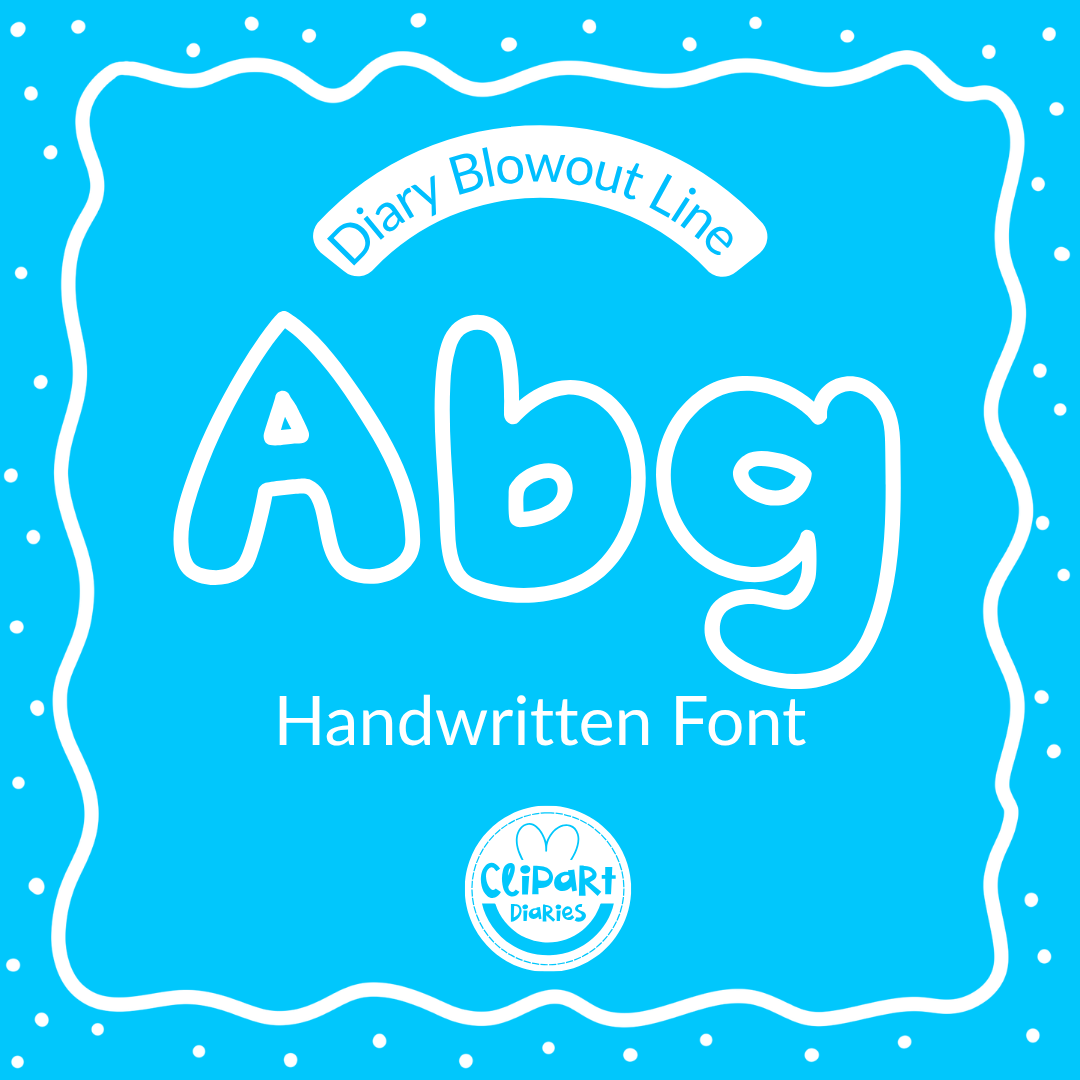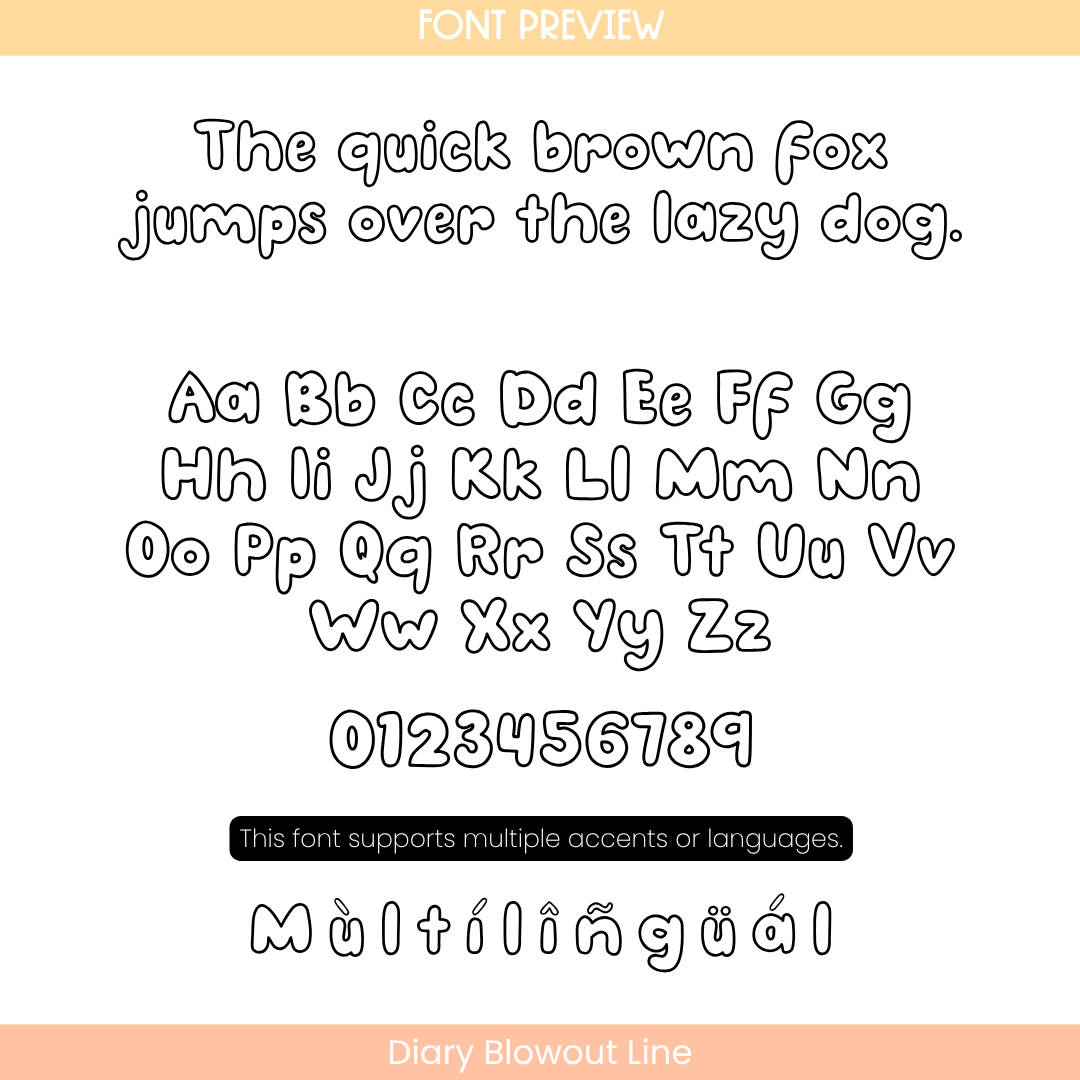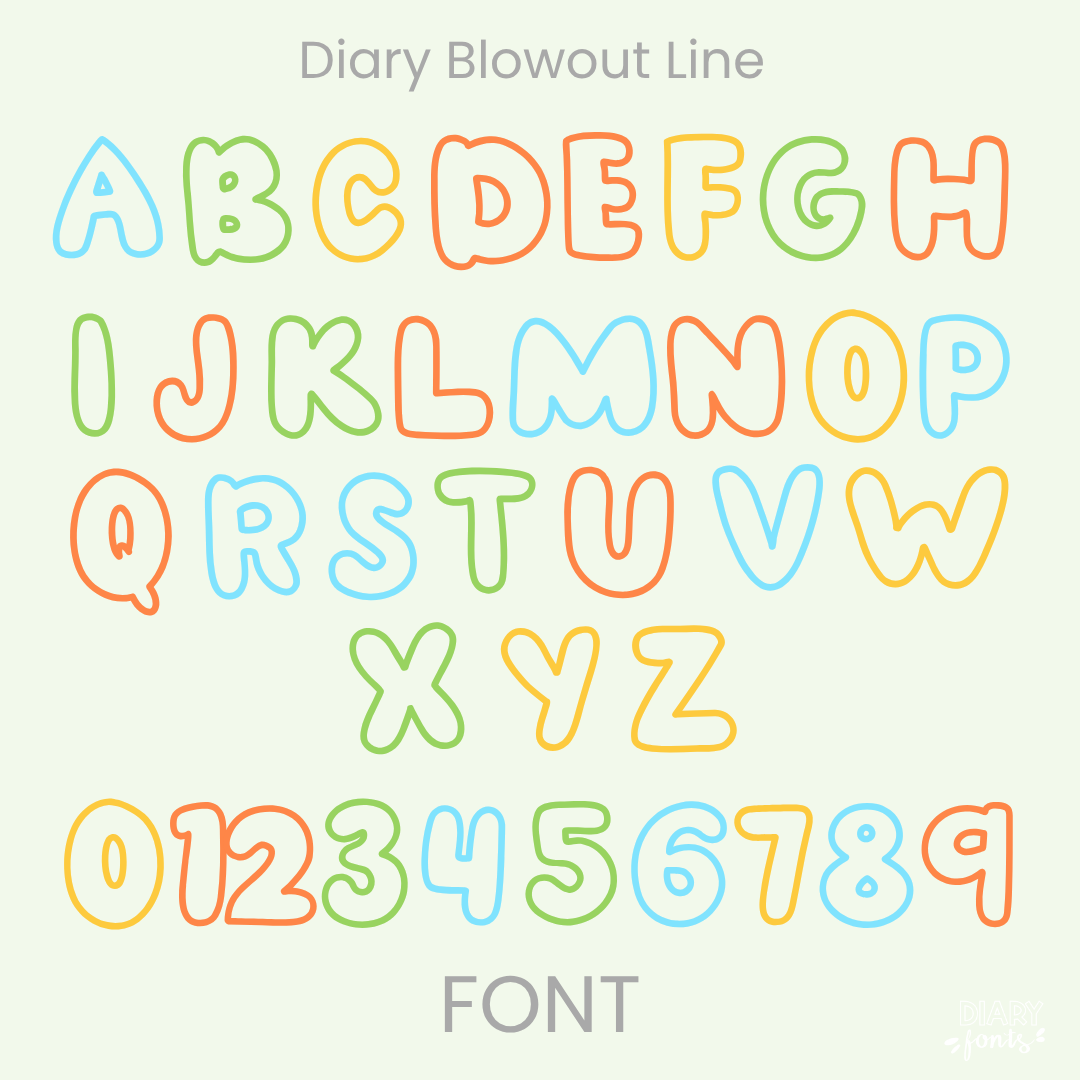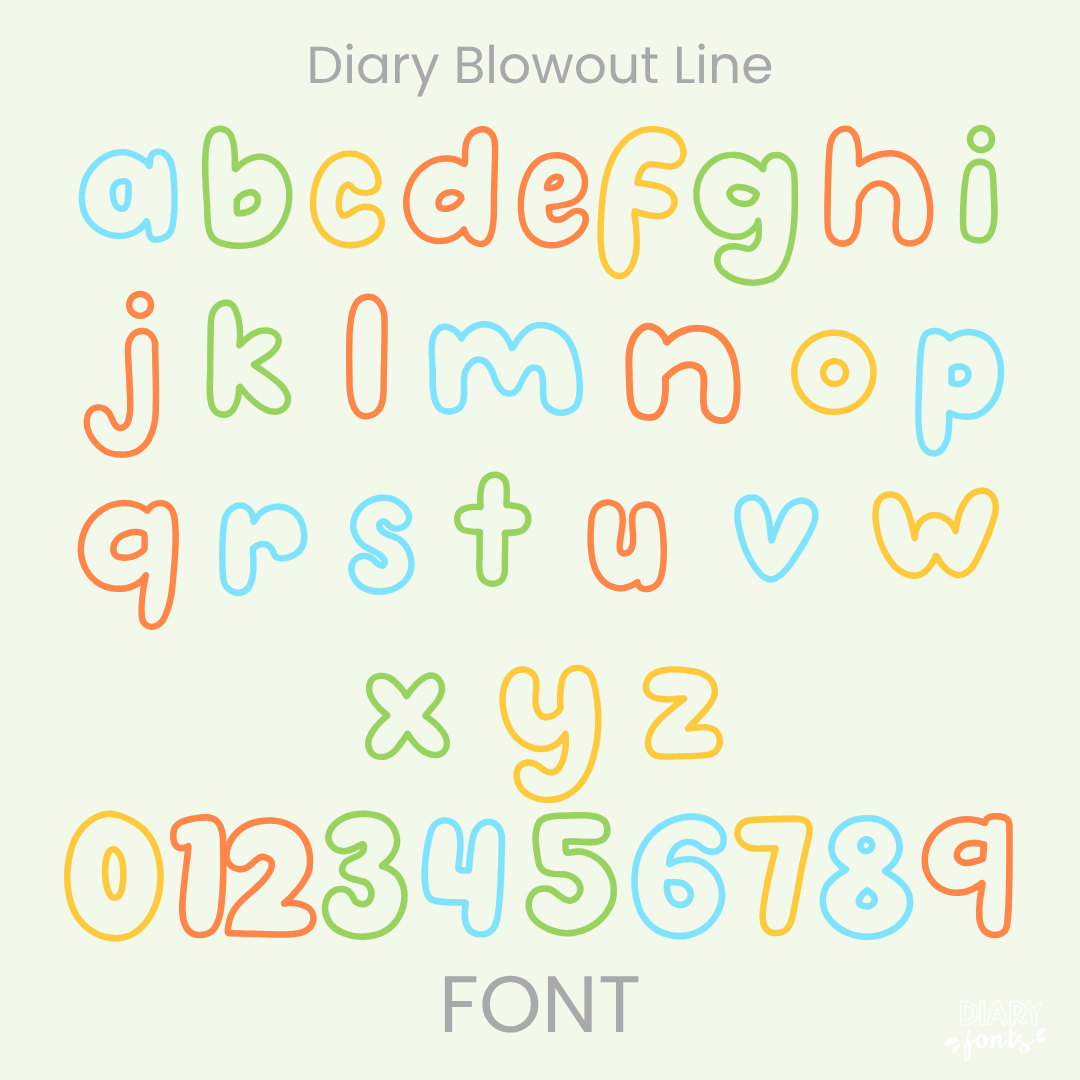
The Diary Blowout Line is a clean, airy handwritten font designed to add a bright and personal touch to your digital resources and classroom materials.
Bring a fresh and energetic feel to your designs with Diary Blowout Line, a stylish handwritten font that combines a spirited aesthetic with professional clarity. This versatile typeface includes a complete set of uppercase and lowercase letters, numbers 0–9, and full multi-language support for various accents, making it a perfect choice for global educational projects. It is compatible with Canva, MS Office, and Adobe Apps, as well as popular iPad tools like GoodNotes and Procreate. Whether you are creating classroom decor, engaging worksheets, or personalized digital planners, Diary Blowout Line offers a polished, hand-drawn look that is ideal for both personal and commercial use.